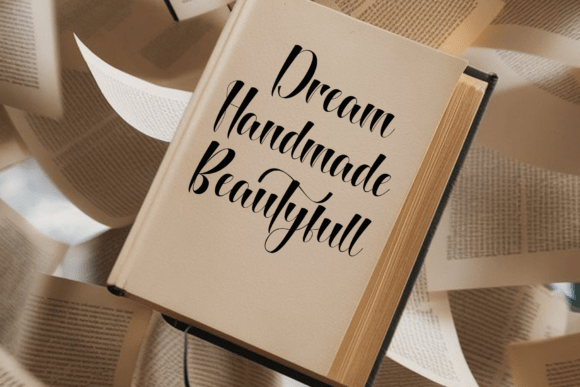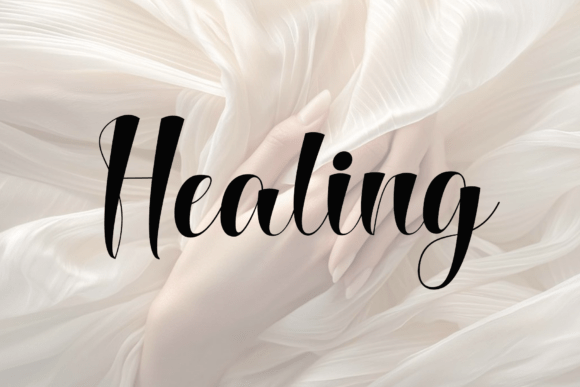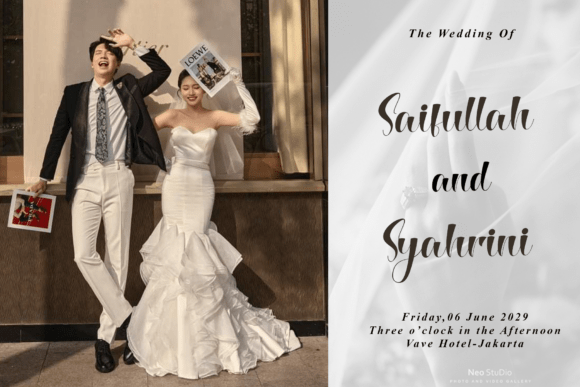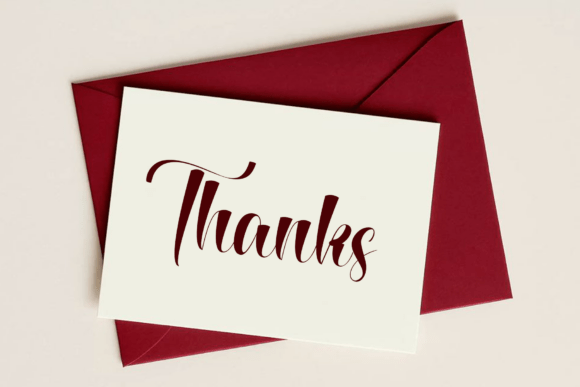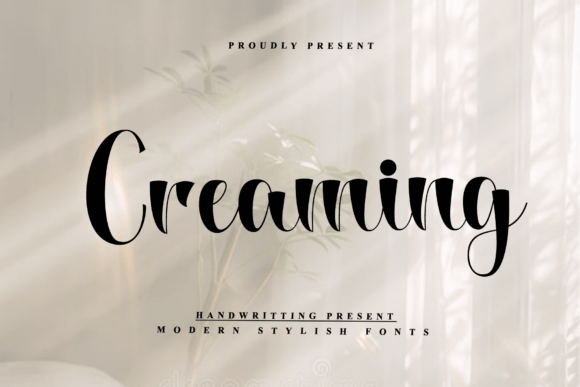
Creaming Font: Elevate Your Designs with Luxurious Elegance
In the world of typography, few fonts capture the essence of luxury and sophistication as effortlessly as Creaming. This stunning script font is designed to bring a touch of elegance to any design, making it perfect for projects that demand a high-end aesthetic. With its fluid handwritten feel, modern calligraphic style, and refined curves, Creaming is the ideal choice for designers and crafters looking to add a dash of romance and sophistication to their work.
The Characteristics of Creaming Font
Creaming is a luxurious and graceful script font that boasts elegant curves and a fluid handwritten feel. Its flowing strokes and modern calligraphic style give it a refined aesthetic that’s perfect for a range of applications, from wedding invitations and feminine branding to boutique logos and high-end product labels. The font’s romantic appeal and polished typeface make it an excellent choice for designers looking to create elegant and sophisticated designs.
Perfect for Elegant Projects
Creaming is specifically designed for projects that require a stylish, personal, and polished typeface. Its elegant curves and refined aesthetic make it perfect for:
• Wedding Invitations: Add a touch of luxury and romance to your wedding invitations with Creaming’s elegant script.
• Feminine Branding: Create a sophisticated and feminine brand identity with Creaming’s refined aesthetic.
• Boutique Logos: Elevate your boutique’s logo with Creaming’s modern calligraphic style and elegant curves.
• High-End Product Labels: Give your high-end products a luxurious feel with Creaming’s polished typeface.
Why Choose Creaming Font?
With so many fonts available, why choose Creaming? Here are just a few reasons why designers and crafters love this luxurious script font:
• Unique and Elegant: Creaming’s modern calligraphic style and refined curves make it a unique and elegant addition to any design.
• Versatile: From wedding invitations to high-end product labels, Creaming is versatile enough to be used in a range of applications.
• Easy to Read: Despite its elegant curves, Creaming is easy to read, making it perfect for designs that require a touch of sophistication and polish.
• High-Quality: Creaming is a high-quality font that’s designed to deliver exceptional results in any design.
Tips for Using Creaming Font
To get the most out of Creaming, here are a few tips to keep in mind:
• Pair with Neutral Colors: Creaming looks stunning when paired with neutral colors like white, beige, or pale gray.
• Use in Headlines: Creaming is perfect for headlines and titles, where its elegant curves and refined aesthetic can really shine.
• Experiment with Sizes: Don’t be afraid to experiment with different sizes and font weights to create visual interest and hierarchy in your design.
• Add Decorative Elements: Consider adding decorative elements like ribbons, flowers, or other design elements to really make your design pop.
In conclusion, Creaming is a luxurious and elegant script font that’s perfect for designers and crafters looking to add a touch of sophistication to their work. With its fluid handwritten feel, modern calligraphic style, and refined curves, Creaming is the ideal choice for elegant projects that require a stylish, personal, and polished typeface. Whether you’re designing wedding invitations, feminine branding, boutique logos, or high-end product labels, Creaming is sure to deliver exceptional results.